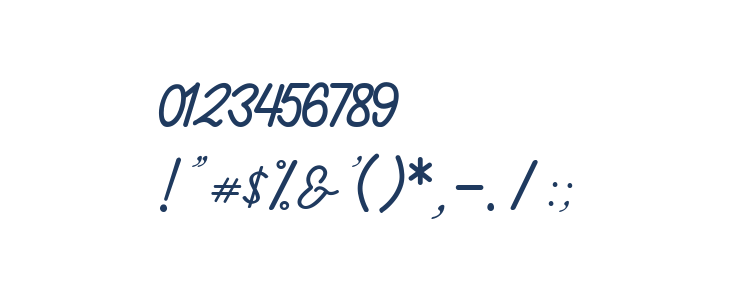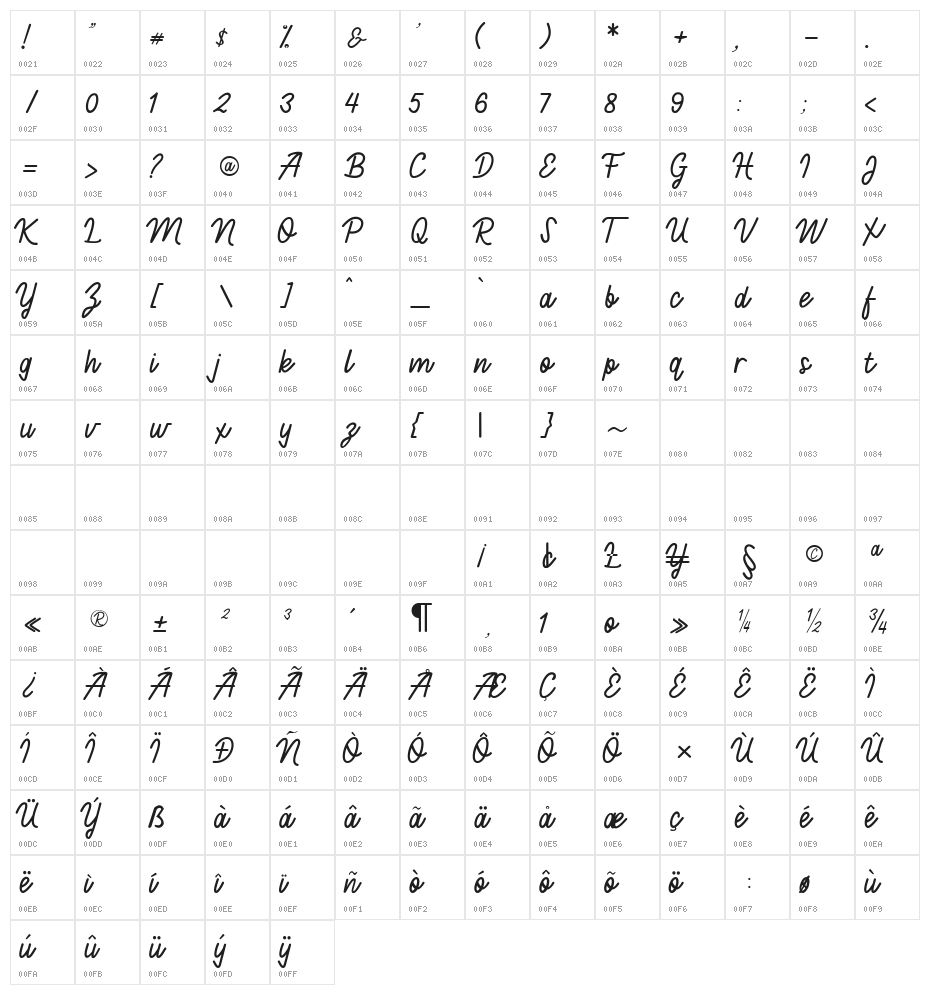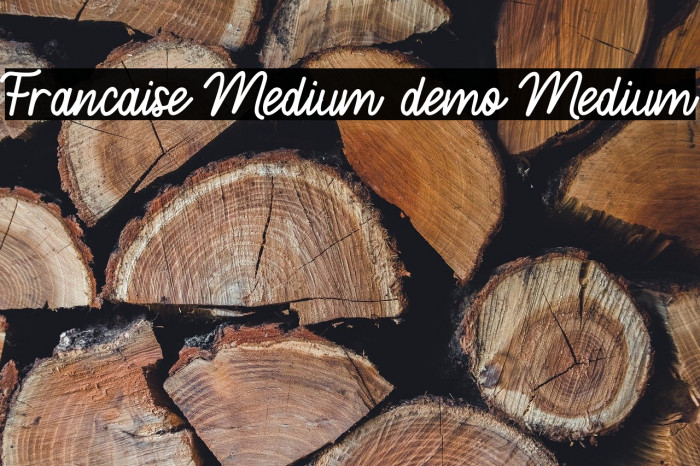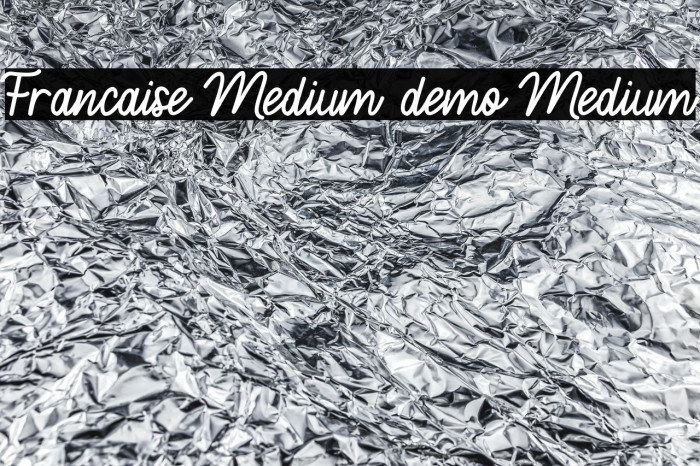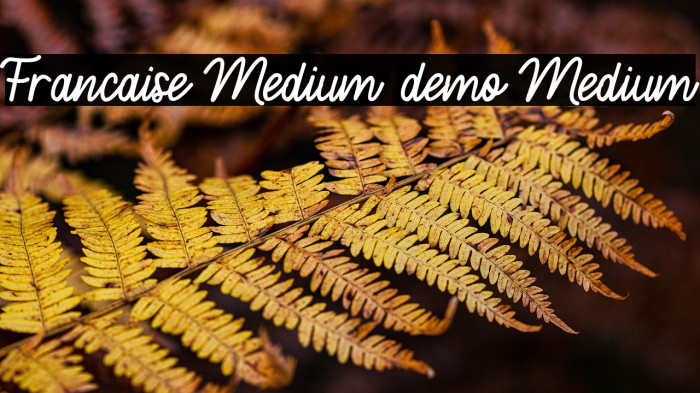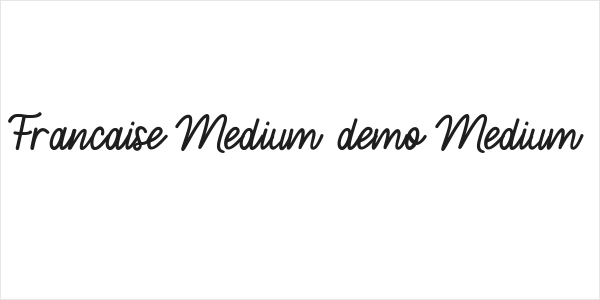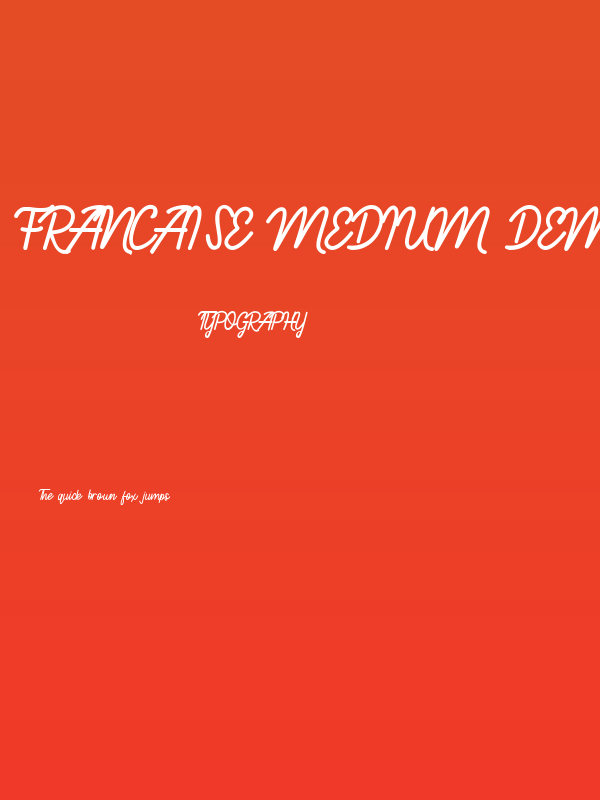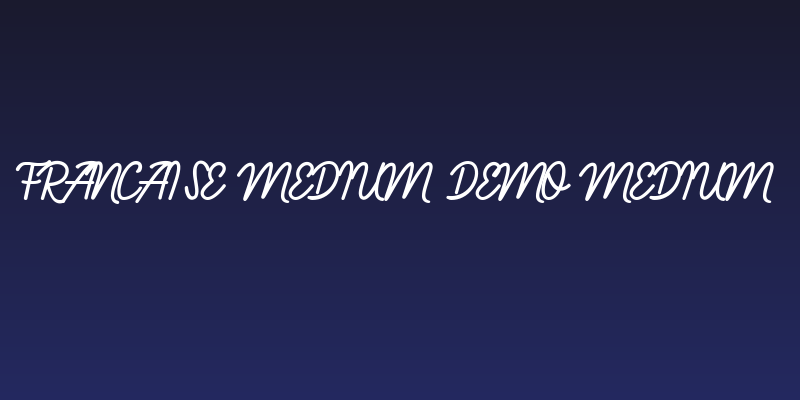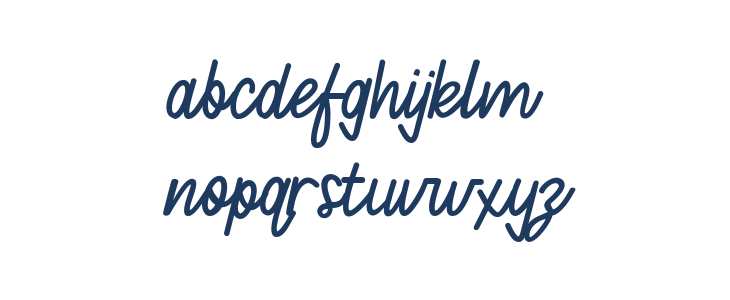
Francaise Medium demo Medium Font
Francaise Medium demo Medium Description
This font exudes a classic and elegant script style, characterized by its flowing, cursive letterforms that mimic traditional handwriting. The uppercase letters are bold and sweeping, with graceful curves and loops that add a sense of movement and fluidity. The lowercase letters maintain a consistent style, offering a harmonious blend with the uppercase. The numerals are distinct yet cohesive with the overall script style, providing clarity and readability. Special characters are thoughtfully designed to match the elegant aesthetic, making this font versatile for various design needs.